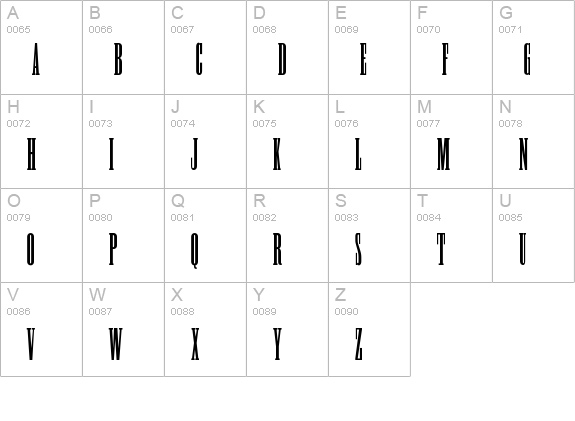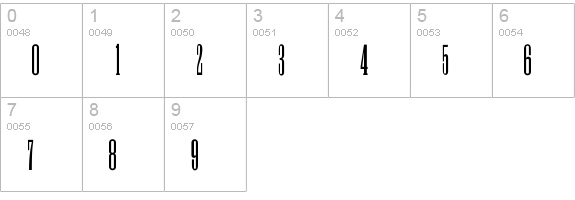
Suffolk Font Details
Suffolk font is a classic and elegant typeface that exudes sophistication and charm. With its timeless design and refined strokes, Suffolk is the perfect choice for projects that require a touch of traditional beauty. This versatile font can be used for various purposes, from branding and logo design to wedding invitations and editorial layouts. What makes Suffolk font even more appealing is that it is available for free download at FontsMarket.com. This means that you can easily access this stunning font without any cost, making it a valuable addition to your font collection. Don't miss out on the opportunity to enhance your designs with the exquisite beauty of Suffolk font - download it for free today!